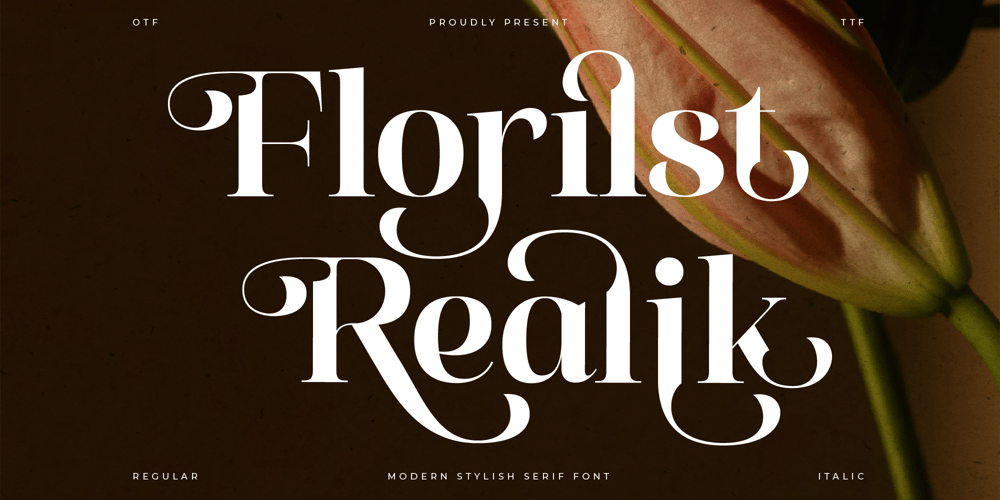
Florilst Realik Font Family was designed by Heru Utama Putra and published by Letterena Studios. Florilst Realik contains 2 styles and family package options. Florilst Realik is a modern and classic typeface that has its own unique style and modern look. This typeface is perfect for an elegant & luxurious logo, book or movie title design, fashion brand, magazine, clothes, lettering, quotes, and so much more.